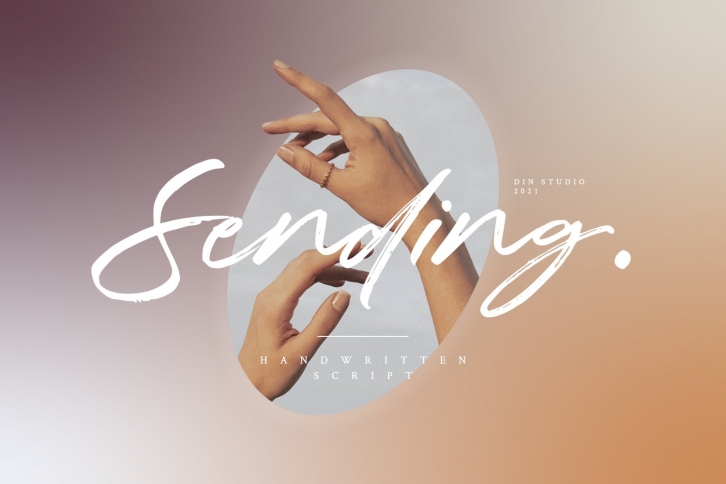
Sending is a trendy and unique font with an authentic style. It was designed by Din Studio and it's a great choice for creative people who need such a font. It was released on March 27, 2021 and the file size is 14.88 MB. Sending will add an organic vibe to any design idea!